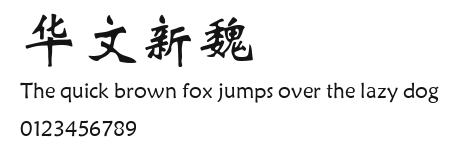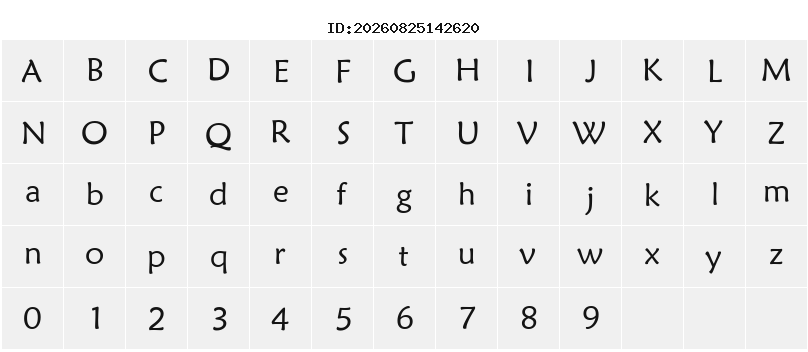
华文新魏 Preview
• Font Name: 华文新魏
• Full Font Name: 华文新魏
• PostScript Name: STXinwei
About 华文新魏.ttf
华文新魏.ttf is a modern, elegant sans-serif font designed for ultimate readability and visual harmony. Perfect for branding, headlines, web design, and print materials.